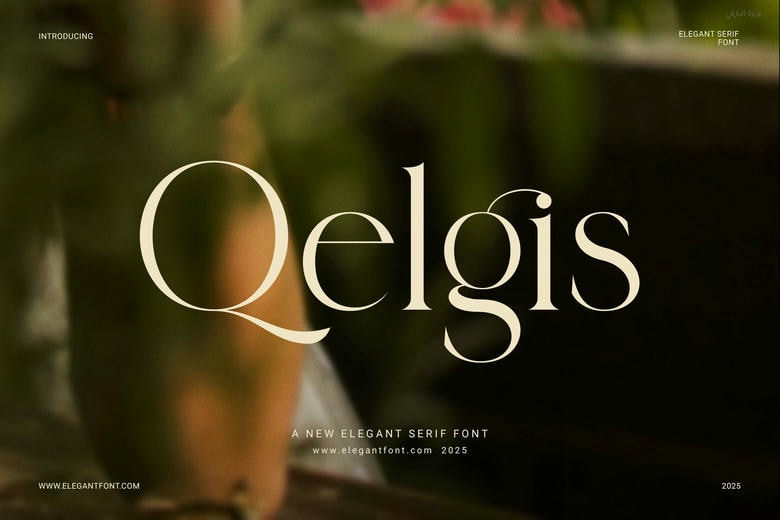
Qelgis Font
Qelgis is a sophisticated font with an intricate mix of classic and contemporary style. It has proportional typesetting, smooth line and is intended to bring a professional and graceful touch to any project. Qelgis enables your typography to appear more natural and fluid because it has well-designed ligatures.
These small touches make your layout clean and consistent but adds charm and character. This font makes your message have style and be memorable whether you are using it in print designs or web designs.
Qelgis Serif Font